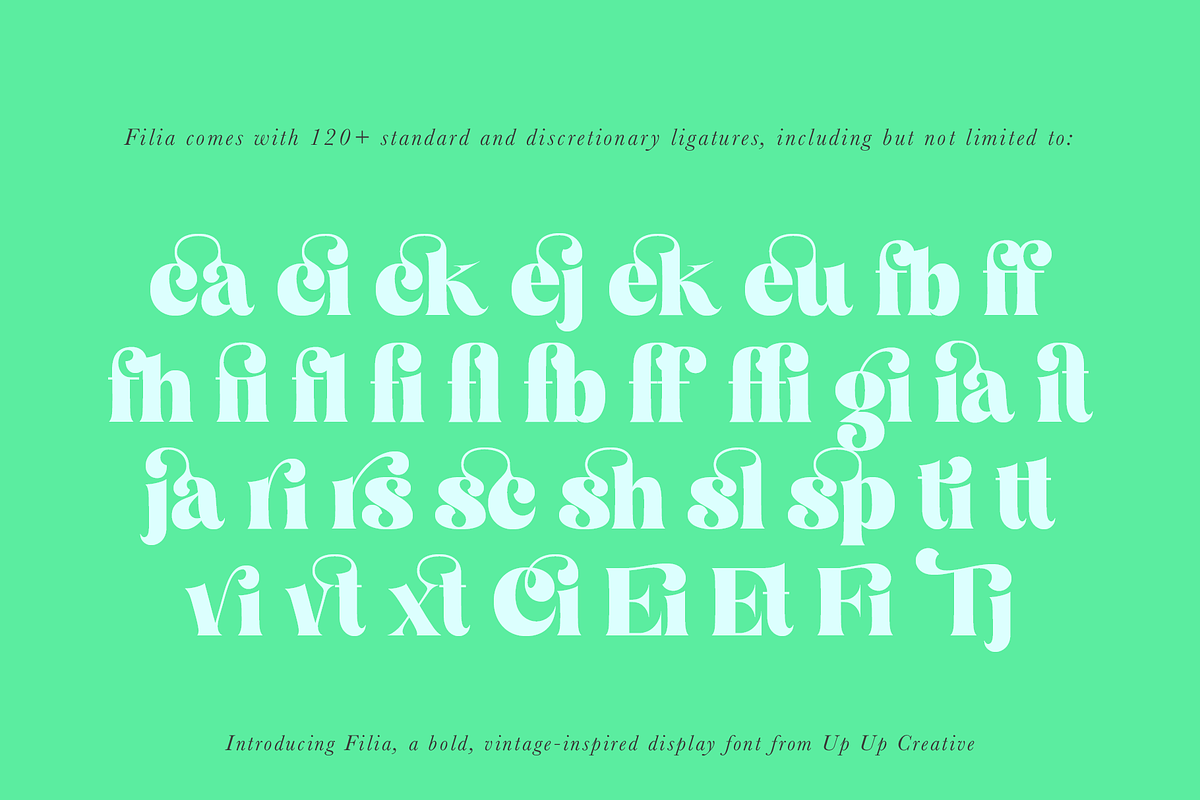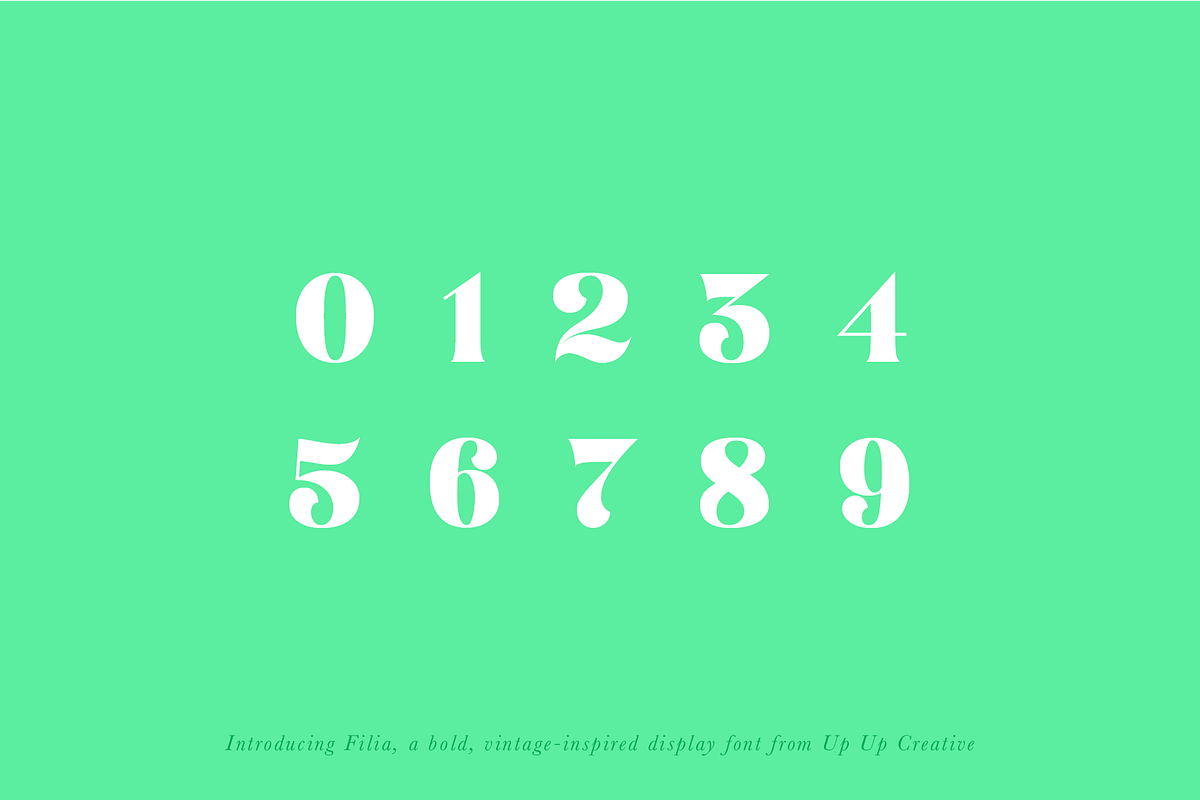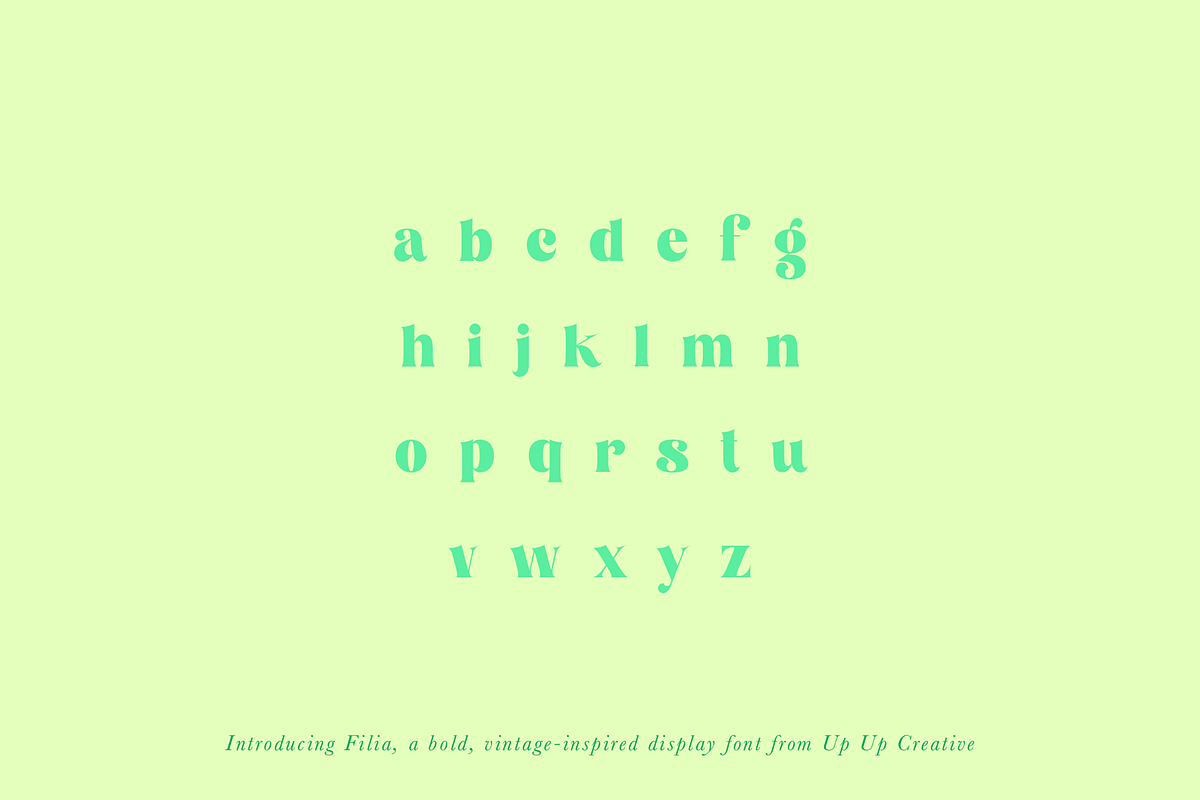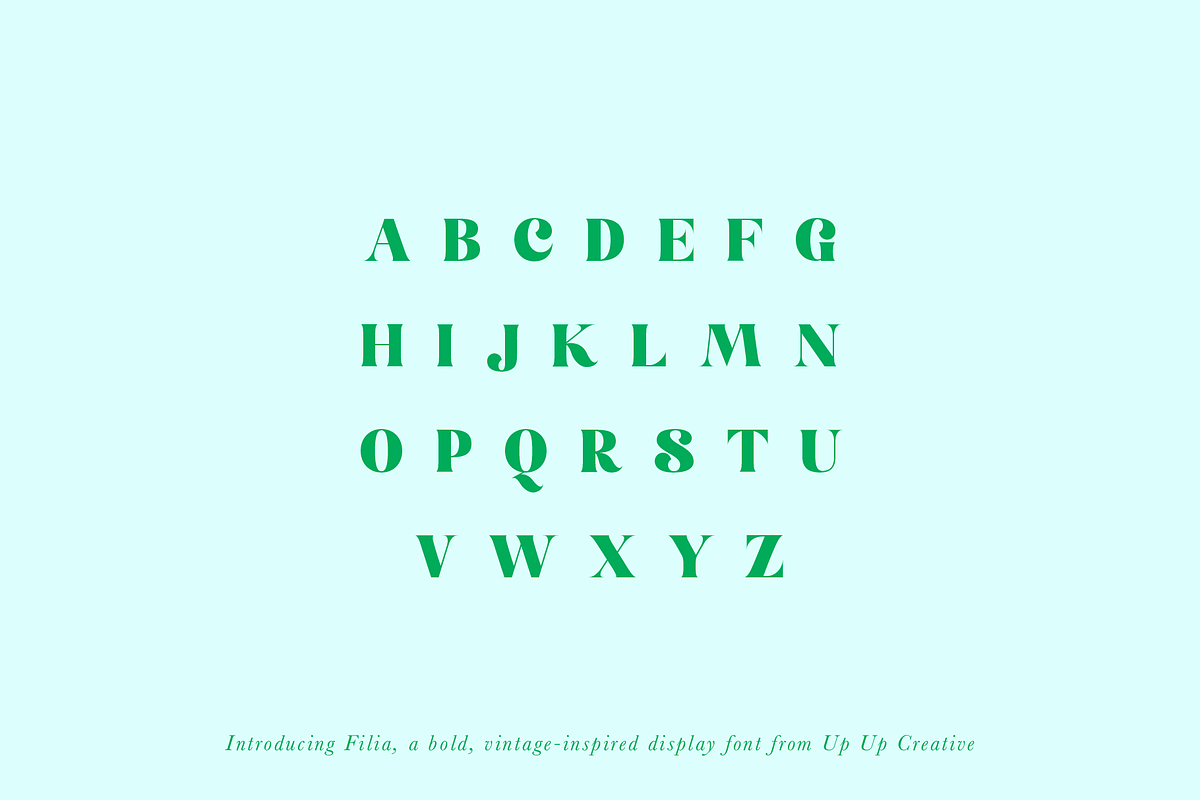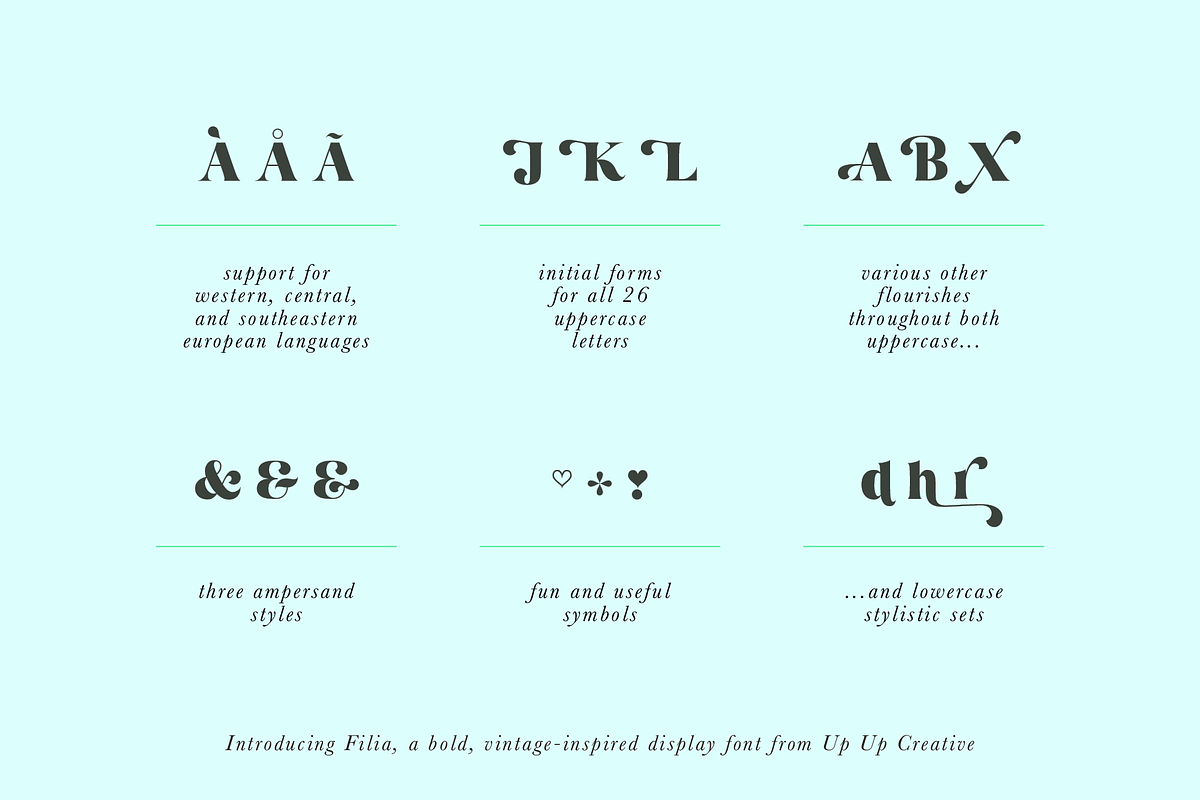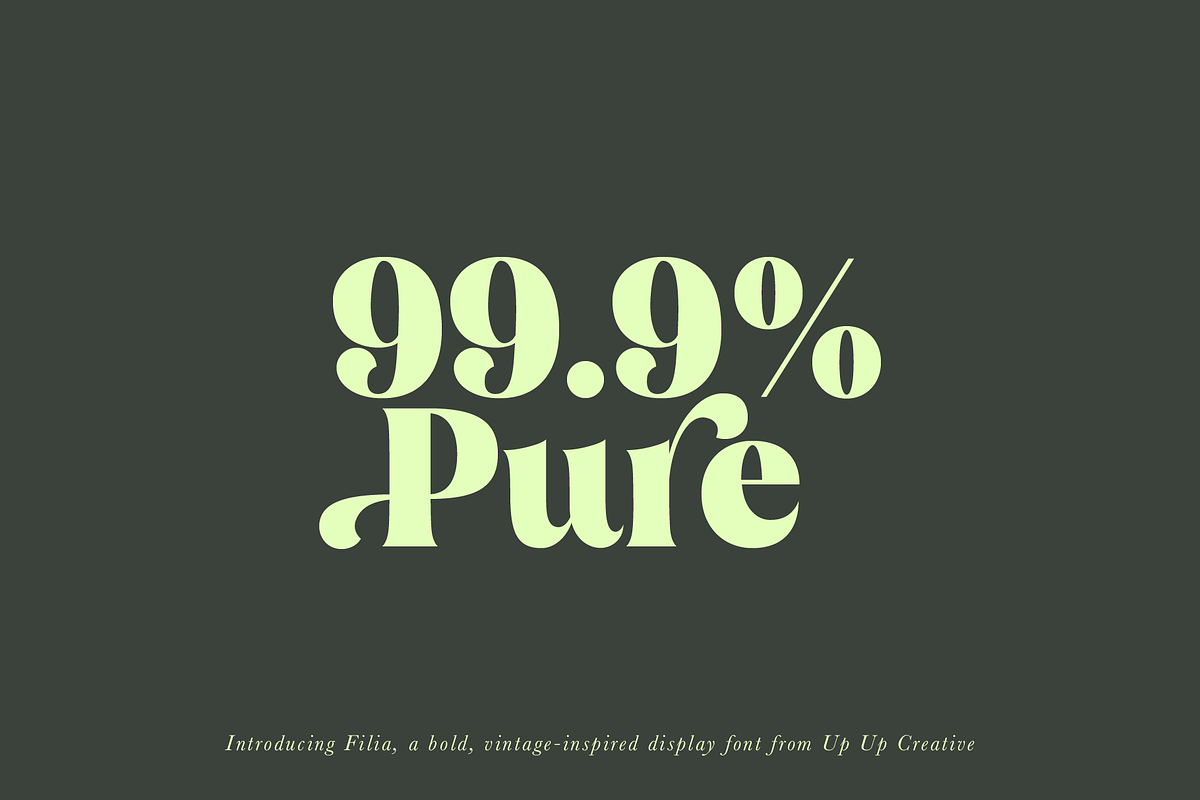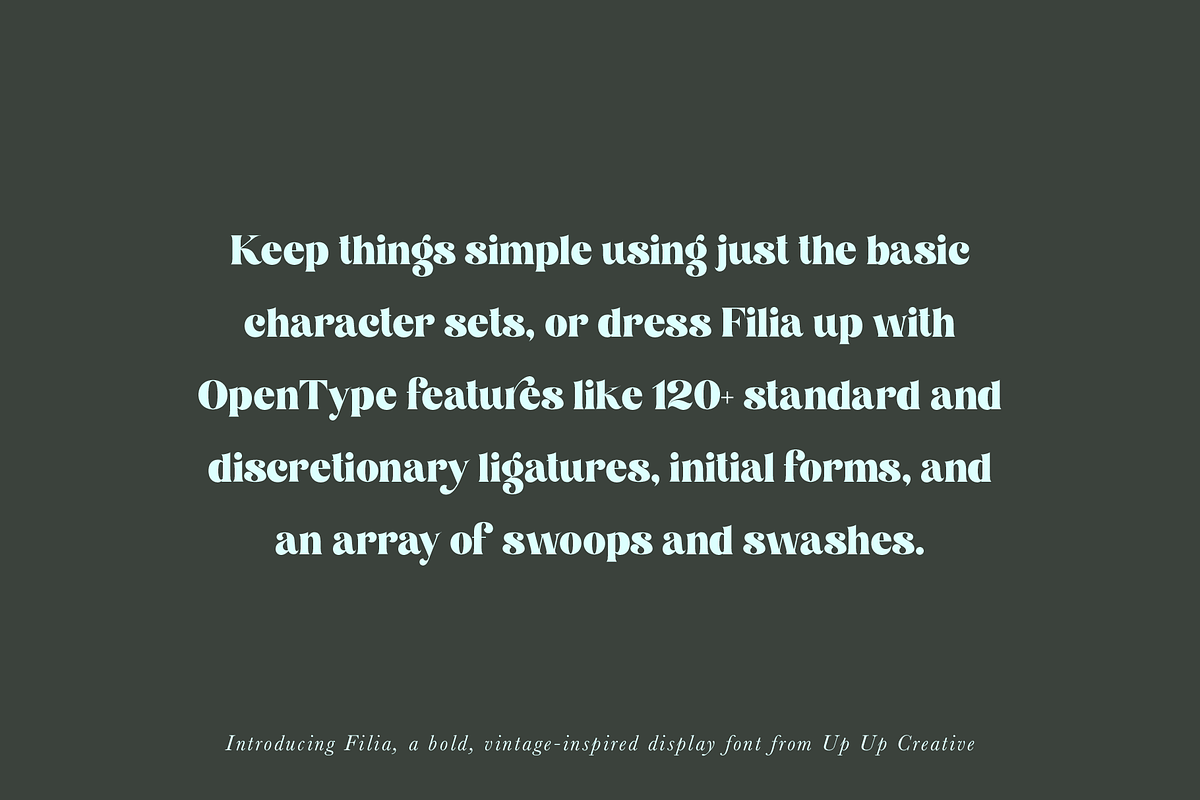
Filia Display Font
Introducing Filia, a vintage-inspired display font with smooth curves and plenty of OpenType features. Filia is perfect for your next editorial, advertising, branding, book, or invitation project.
Filia includes 900+ glyphs. Specific OpenType features include stylistic alternates, several stylistic sets with features like swashes, initial forms, multilingual support (including multiple currency symbols - for kicks I even included a Bitcoin symbol in there), and three ampersand styles. It also includes 120+ standard and discretionary ligatures that add character and interest to your typography.